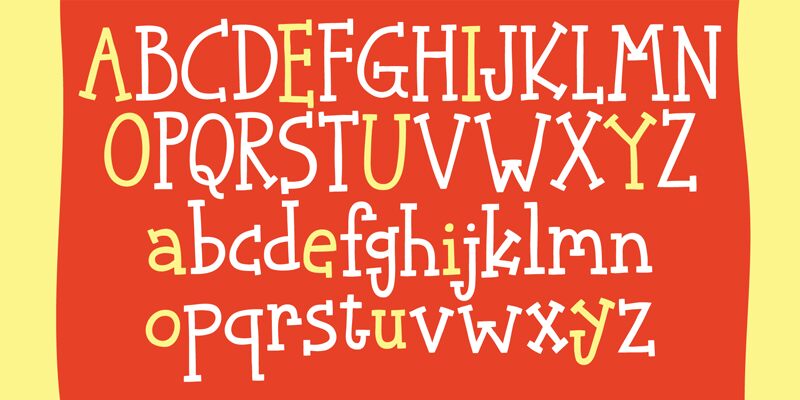
Hand Soup DEMO
Hand Soup font by Pizzadude is a playful display typeface exhibiting cartoon features which make it ideal for various fun design projects. Much like handwritten letters, each unit has a unique character and an irregular baseline that further enriches its artistic modern look. The font also conveys a friendly and casual tone to the readers.
The free cartoon font fascinates kids and adults alike with a charming style that can be used on envelopes, postcards, birthday invitation cards, coloring books for kids, or cartoon covers. Of course, it also finds use in educational platforms that benefit from an interactive learning environment. Display work includes titles of games or colorful posters.